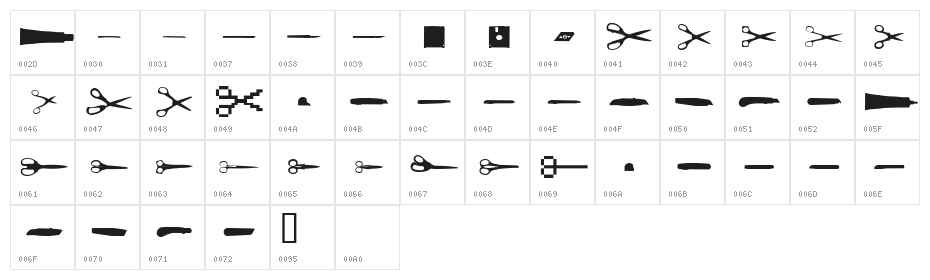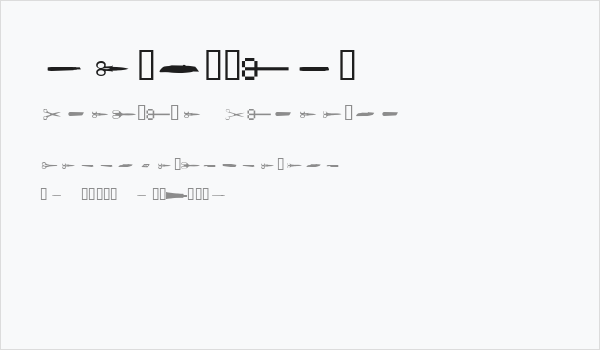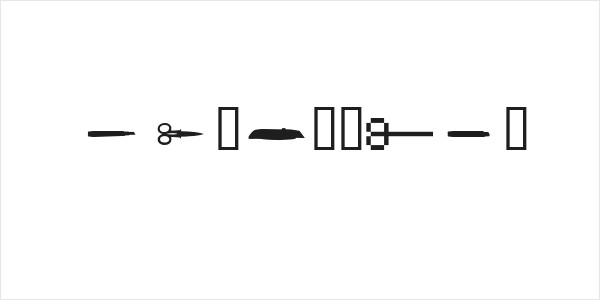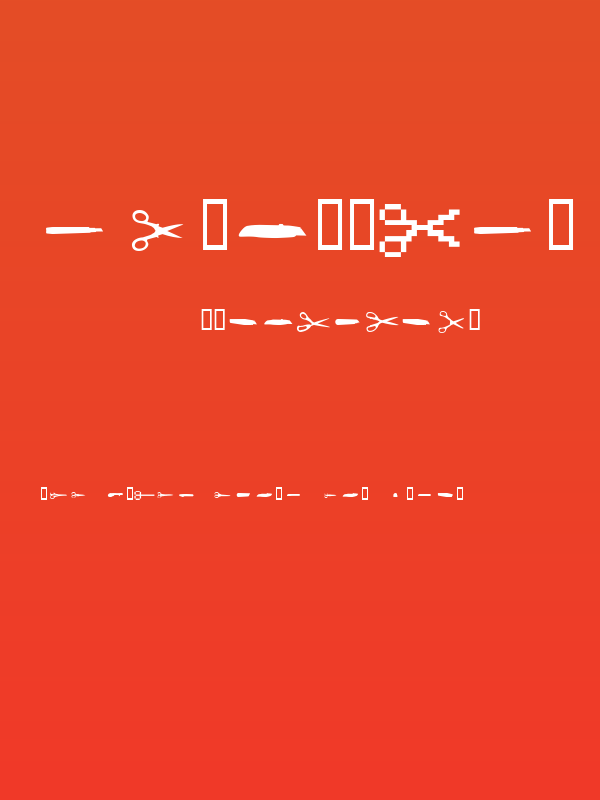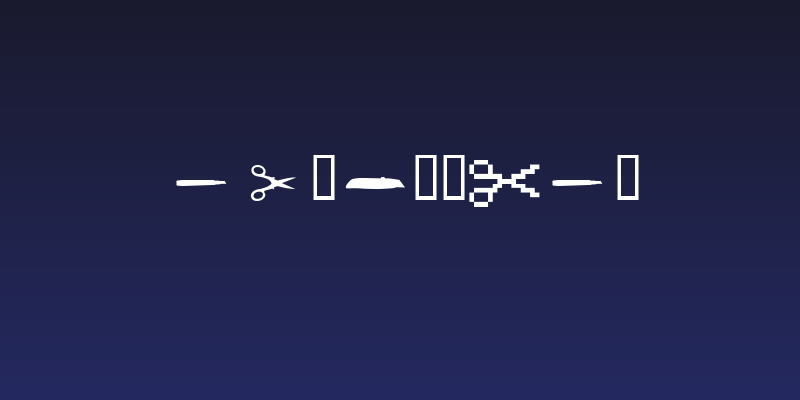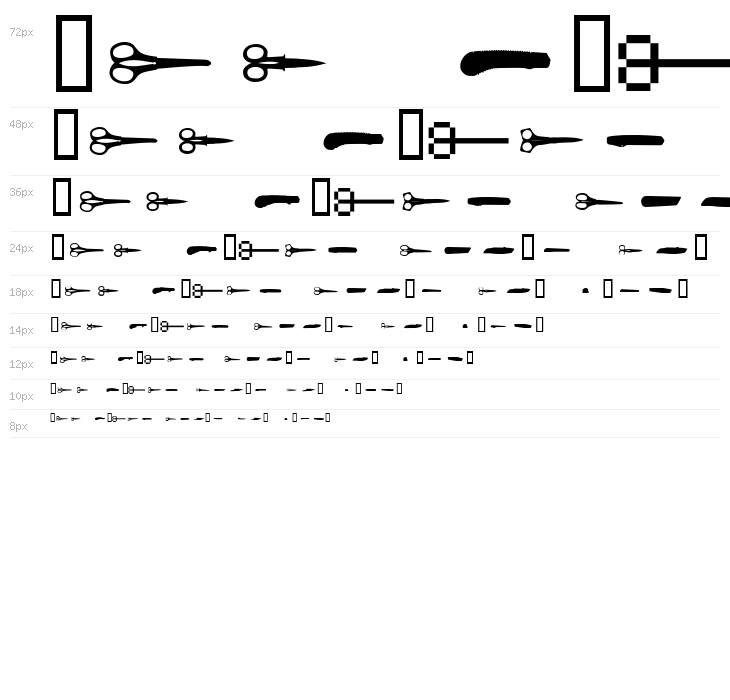
LesOutils Font
LesOutils Description
A pictogram-style dingbat font featuring silhouettes of various tools such as scissors, knives, combs, and tubes, presented in both outline and solid forms. The glyphs are simple, bold, and highly recognizable, designed for visual communication rather than textual content.
Overall StyleDecorative, Modern, Pictogram
Use CaseIcons, visual aids, thematic graphics, non-verbal communication.
Proposed ProjectsInfographics, educational materials, signage, packaging, instructional guides, childrenÒ€ℒs books.